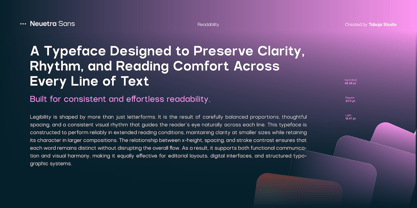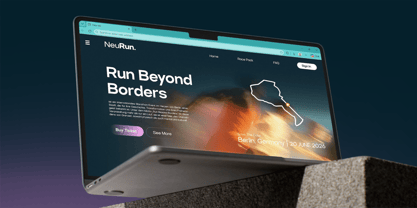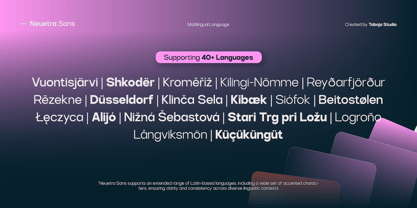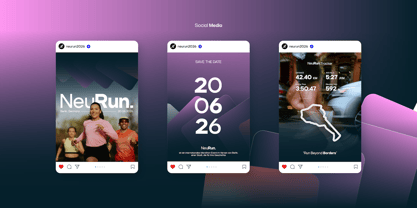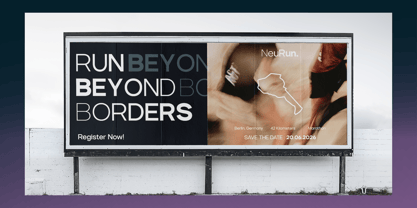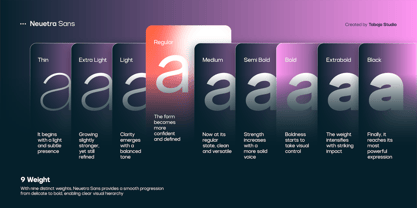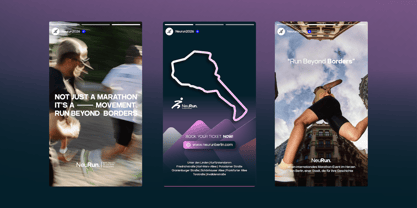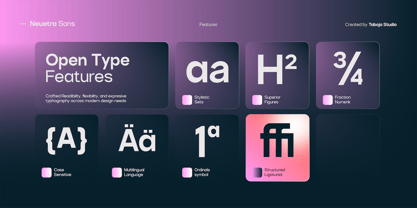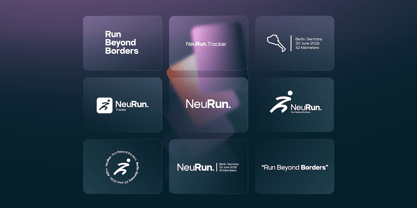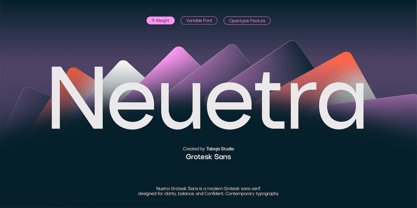
TBJ Neuetra
The TBJ Neuetra Font Family was designed by Yusilo Oktaprima Ardani and published by Taboja Studio. TBJ Neuetra contains 9 styles and family package options. More about this family
TBJ Neutra is a grotesk sans serif drawn from a neutral base with humanist details. It doesn't push for attention — it earns it through consistency. The result is a typeface that feels familiar without being generic, and restrained without being stiff.
The family spans 9 weights with a full variable axis, giving designers real flexibility without sacrificing cohesion. Spacing is set for both screen and print. Terminals are cleaned up where it matters, kept soft where the text needs to breathe.
TBJ Neutra fits naturally into brand identity systems, editorial layouts, UI design, and poster work. It suits brands and studios that need a workhorse typeface — reliable across contexts, honest in form, and easy to build a visual system around.